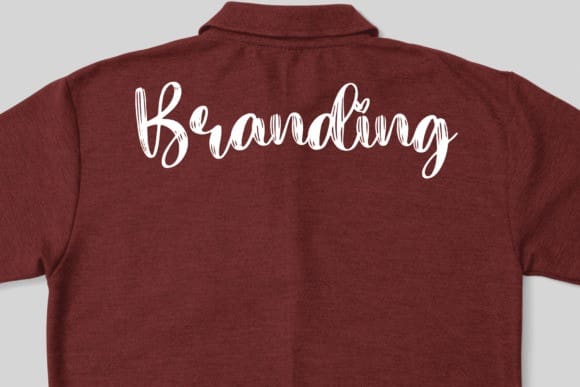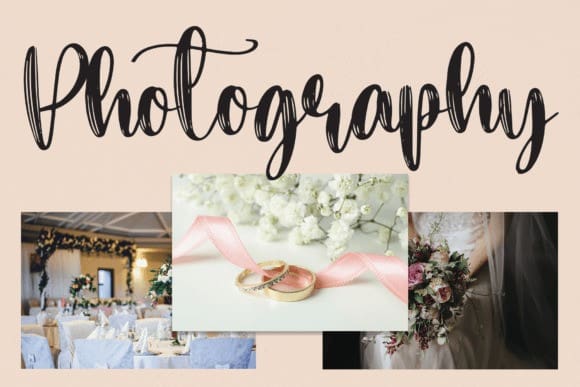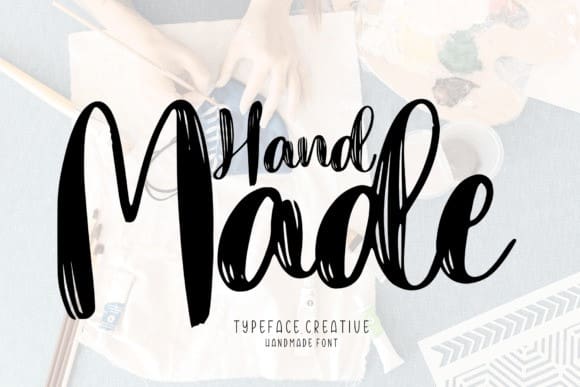
Hand Made Font
Hand Made Font is a cool and modern handwritten brush font crafted to give your headlines and logotype projects a stylish touch. This font reads as strong, confident, and dynamic and can add tons of nostalgic character to your designs.